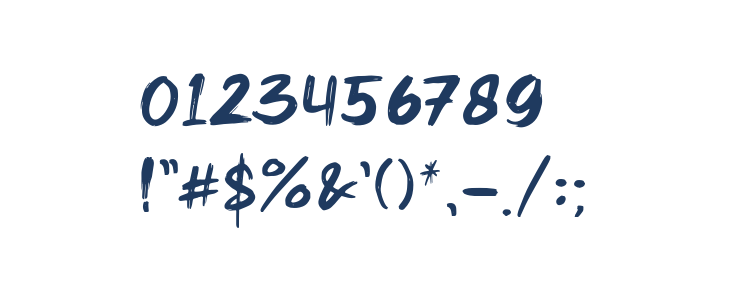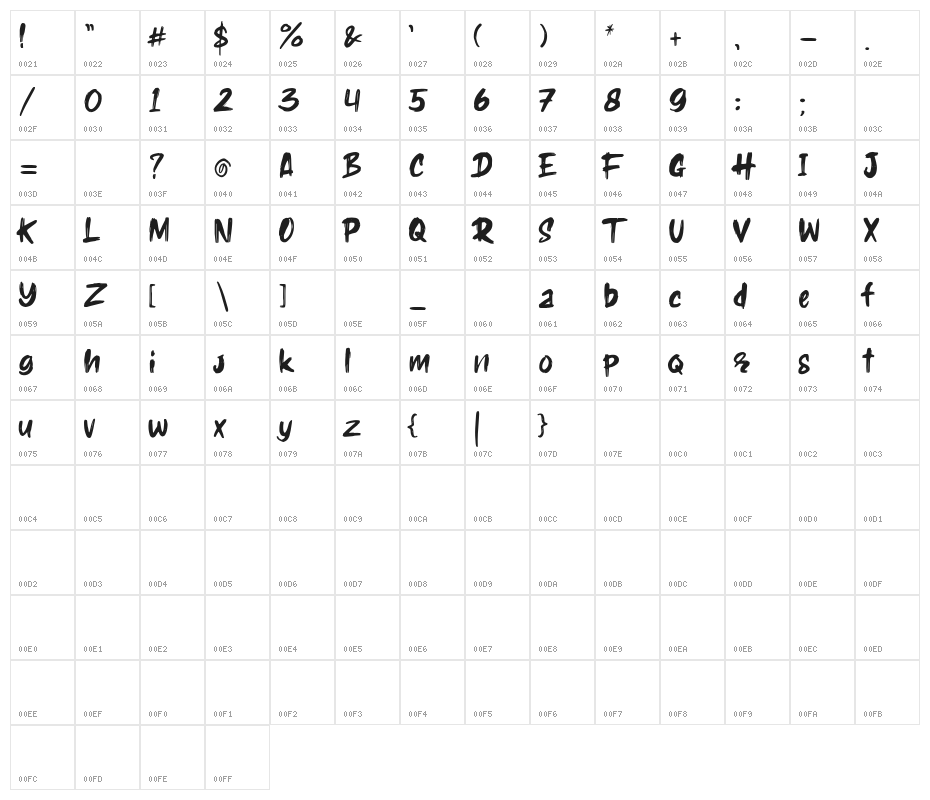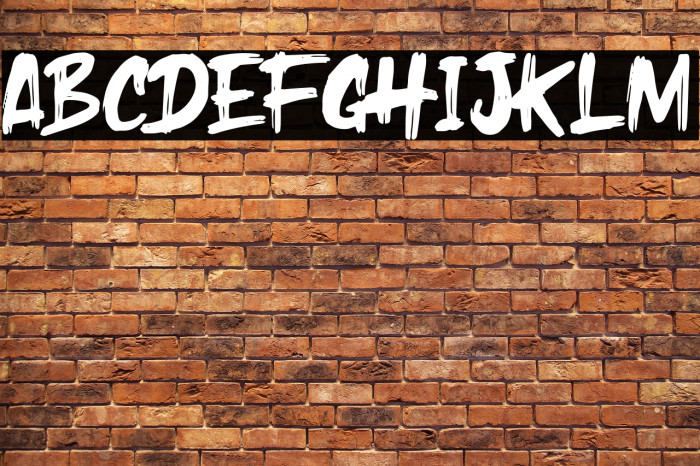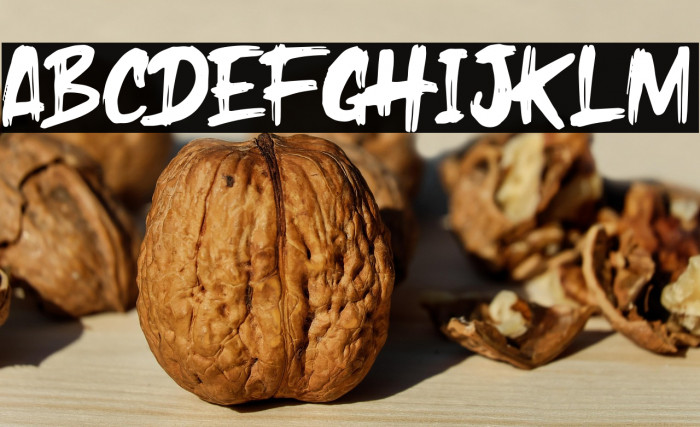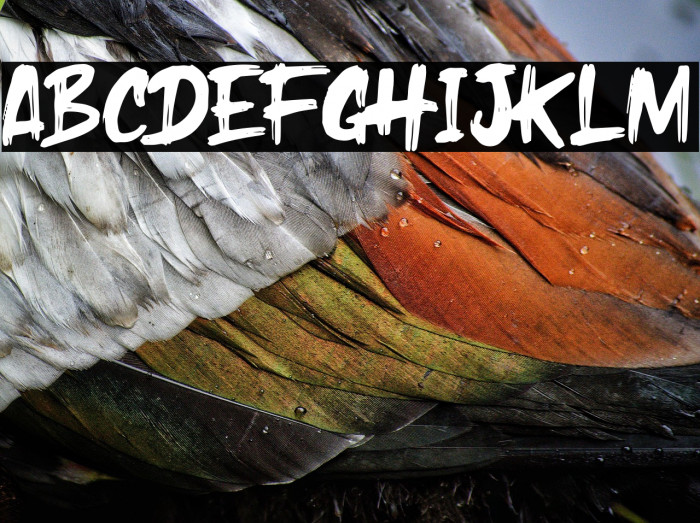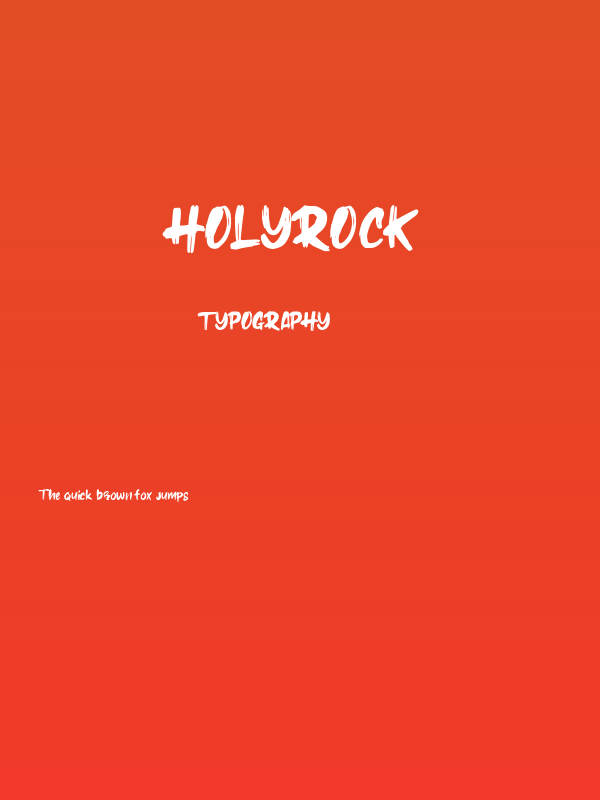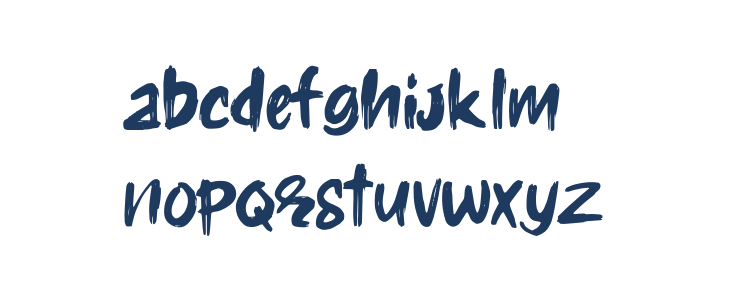
Holyrock Font
Holyrock Description
This font exudes a bold and energetic style, characterized by its brush-like strokes and dynamic appearance. The letters are crafted with a sense of movement and spontaneity, giving them a hand-painted feel. The uppercase and lowercase letters maintain a consistent style, with thick, uneven strokes that add to the font's expressive nature. Numbers and special characters follow the same aesthetic, ensuring a cohesive look across all elements. The overall design is striking and attention-grabbing, making it ideal for projects that require a strong visual impact.
| Overall Style | Modern, Artistic |
| Proposed Projects | Ideal for posters, branding, album covers, and any project needing a bold, artistic touch. |